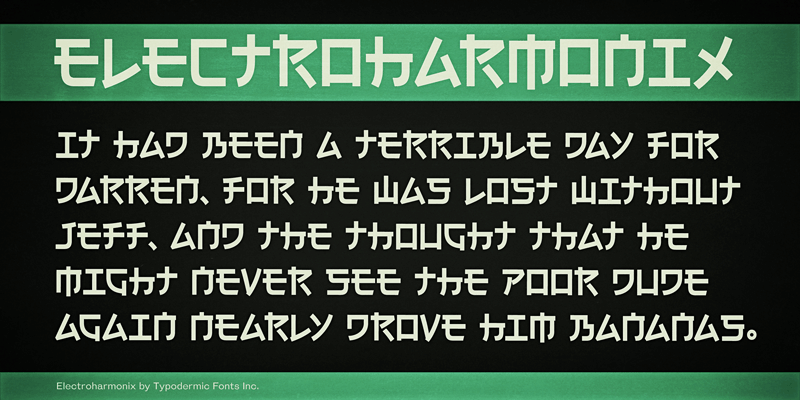
When I created Electroharmonix 13 years ago, I never dreamed that I’d eventually move to Japan and have to learn to read and write Japanese. Now that I can read this stuff, I can see how badly I mangled those Japanese characters. I’ve redrawn everything a little bolder with an attempt to at least sort-of follow the drawing rules of katakana and kanji. This time there’s no hiragana mixed in; strictly katakana, and a few kanji. Of course, I still had to bend, flip and twist it to try to make it look like an alphabet. I’ve given Electroharmonix better kerning, punctuation, math symbols, fractions and numeric ordinals. There are now 3 types of brackets. Double smart-quotes have been replaced with Japanese angle quotes. The long dashes have been replaced by double dashes – they resemble a long equal sign. The asterisk is based on the kanji symbol for rice. The question mark now looks like a plain question mark because in Japanese, they often use the same question mark we do. The ellipsis is made of dots instead of rings: that’s done on purpose. This font includes a license that allows free commercial use: sometimes referred to as a desktop license. This allows you to install the font on a computer and use it to create posters, web graphics, game graphics, t-shirts, videos, signs, logos and more. Read the license agreement for details. If you'd like to embed this font in an app, ebook, on the web or anything that's not covered by the desktop license agreement, visit the link below. You'll find distributors who offer different types of licenses or you can contact me for help. http://typodermicfonts.com/electroharmonix/ |